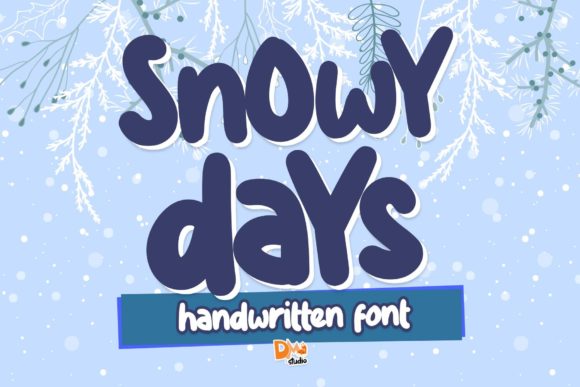
Immerse yourself in a winter wonderland with Snowy Days Font, the ultimate display typeface that will transform your designs into enchanting masterpieces. This whimsical font evokes the magic of freshly fallen snow, inviting you to embrace its playful charm. Unleash your creativity and let Snowy Days Font guide you on an artistic journey that will leave an unforgettable mark.
Snowy Days Font is the epitome of versatility, seamlessly adapting to a myriad of design ventures. Whether you're crafting captivating logos, alluring social media posts, or enchanting invitations, this font will effortlessly elevate your creations. Its playful nature lends itself perfectly to branding and packaging, adding a touch of whimsy that will capture hearts and minds.
Step into a world where imagination knows no bounds. Snowy Days Font is your canvas, ready to be adorned with your unique designs. Its playful curves and delicate strokes will infuse your projects with a touch of childlike wonder, evoking a sense of nostalgia and joy.
As you embark on your creative odyssey with Snowy Days Font, discover the myriad possibilities that await. Its versatility extends to web design, where it effortlessly weaves its magic into captivating headers, elegant body copy, and enticing call-to-actions. Allow Snowy Days Font to enchant your digital presence, leaving a lasting impression that will inspire and engage your audience.
With Snowy Days Font, the boundaries of creativity dissolve, giving way to an endless realm of artistic expression. Its playful spirit breathes life into brochures, flyers, and posters, transforming them into captivating works of art. Let your imagination soar as you witness the transformative power of this delightful font, adding a touch of magic to every project you undertake.
Embrace the enchanting allure of Snowy Days Font and watch as your designs blossom into extraordinary creations. Its playful nature will captivate your audience, leaving them spellbound by the whimsical beauty that unfolds before their eyes. Unleash your imagination and let Snowy Days Font be your guide on an artistic journey that will leave an everlasting impression.